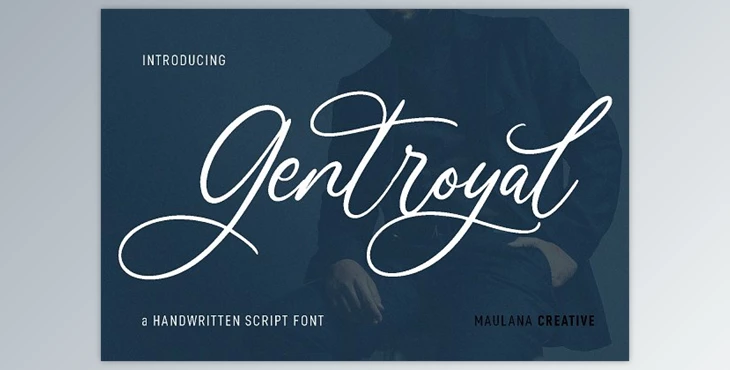
Gentroyal Script Font Creativemarket - 7112306: Gentroyal is a beautiful, unique, stylish cursive typeface. It has a light contrast stroke and an Enjoyable character with a hint of ligatures and stylistic alternatives. To provide you with additional imaginative work. Gentroyal font supports multilingual support for more than 100 languages. This font is great for logo design and social media, as well as movie Titles, books, Titles, short and even long text, and an excellent secondary text font that is serif or sans. Create stunning designs using Gentroyal font.